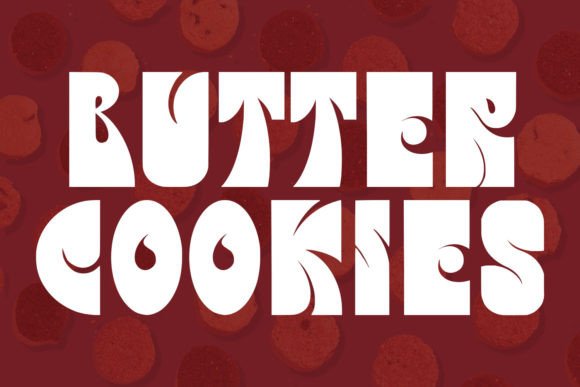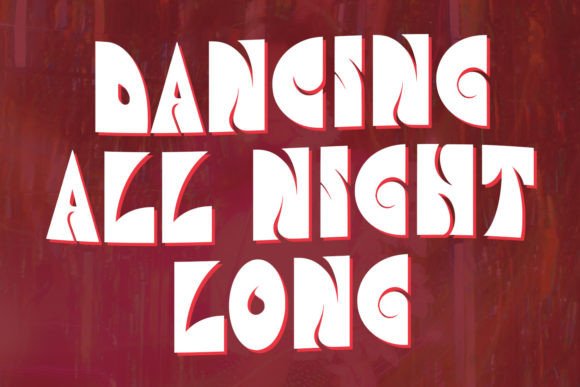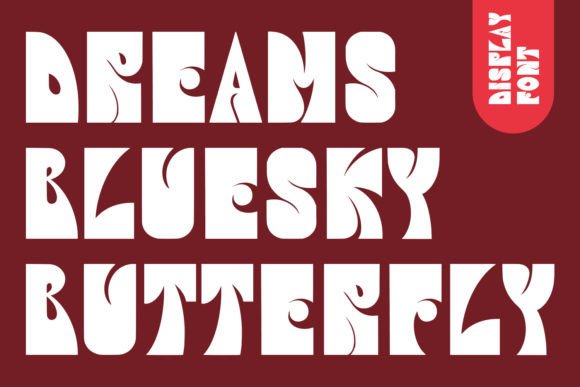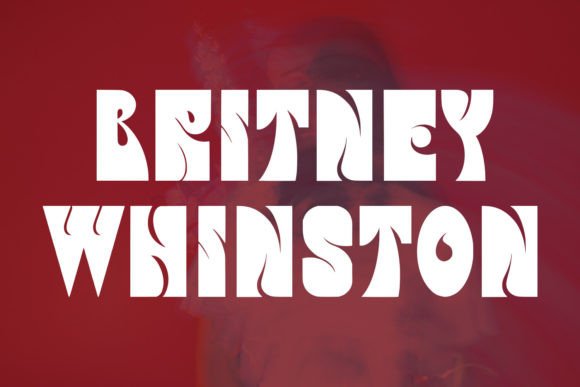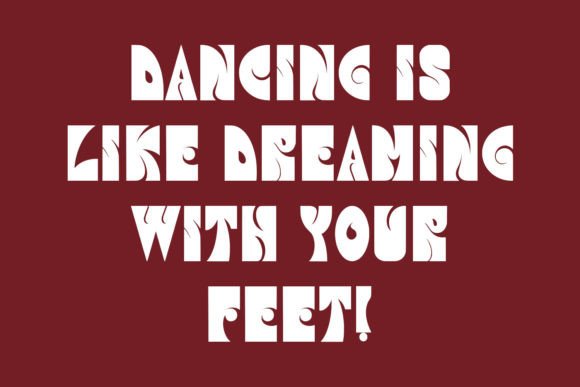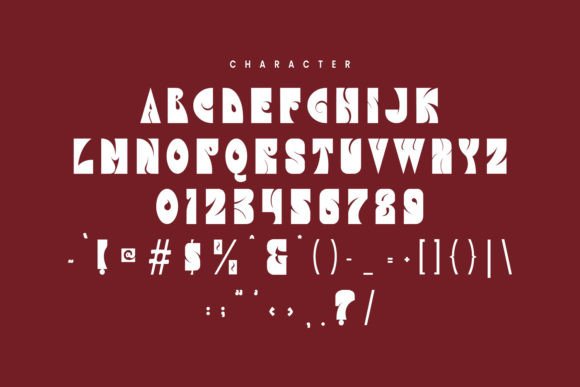
The Groovy World of Flanoe Font
I’ll never forget the time I was working on a project to create a psychedelic poster for a music festival. I had all the elements ready – the colors, the graphics, the vibe – but something was missing. That’s when I realized I needed the perfect font to tie everything together. After hours of scouring the internet, I stumbled upon Flanoe Font. It was love at first sight! The wavy, groovy letters instantly transported me back to the 1960s, and I knew I had found the perfect fit.
Flanoe Font: A Retro Dream Come True
Flanoe Font is a fun and colorful font that looks like it came straight from the 1960s. The letters are wavy and groovy, making them perfect for creating a retro or psychedelic look. This font is great for posters, music album covers, and any design that needs a lively and playful touch.
My Honest Review
So, what do I love about Flanoe Font? Here are a few things:
- ✅ The font is highly versatile and can be used for a range of projects, from posters to social media graphics.
- 💥 It’s perfect for creating a retro or psychedelic look that’s sure to turn heads.
Of course, no font is perfect, and Flanoe Font does have a few quirks:
- 🤔 Some of the letters may appear a bit distorted when used at smaller sizes.
- ⚠️ It may not be the best choice for body text, as it’s more suited for headlines and titles.
Flanoe Font comes with a range of OpenType features and glyphs that can help you create unique and interesting designs. Here are a few tips for using OpenType features and glyphs:
- Experiment with different stylistic alternates to create a unique look.
- Use glyphs to add decorative elements to your design.
- Take advantage of OpenType features like ligatures and swashes to add visual interest.
The Story Behind Flanoe Font
Flanoe Font was designed by a team of creatives who wanted to capture the fun, playful spirit of the 1960s. Inspired by the era’s iconic typography and design, they created a font that’s perfect for adding a retro touch to any project. Whether you’re a designer, crafter, or creative hobbyist, Flanoe Font is sure to bring a smile to your face and a touch of groovy style to your designs.
| What is Flanoe Font? | Flanoe Font is a fun and colorful font that looks like it came from the 1960s. The letters are wavy and groovy, making them perfect for creating a retro or psychedelic look. |
| What can I use Flanoe Font for? | Flanoe Font is great for posters, music album covers, and any design that needs a lively and playful touch. |